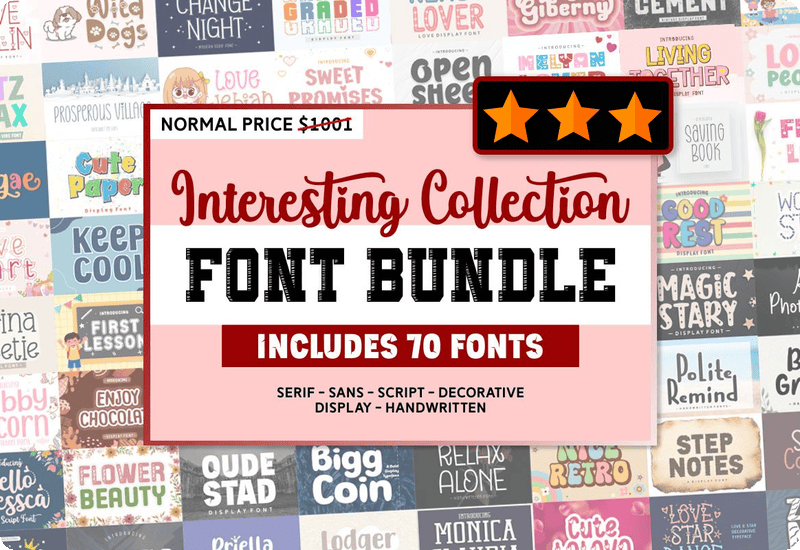
What is the Interesting Collection Font Bundle?
Premium Fonts included in the Interesting Collection Font Bundle:
- Wild Dogs Decorative Font
- Happily Christmas Script & Handwritten Font
- Luxury Christmas Display Font
- Love Star Dance Script & Handwritten Font
- Chubby Unicorn Script & Handwritten Font
- Rough Cement Fontes de Exibição Fonte
- Spooky Legend Display Font
- Aerial Photography Script & Handwritten Font
- Change Night Display Font
- Merina Sweetie Script & Handwritten Font
- Graded Display Font
- Prosperous Village Script & Handwritten Font
- Waiting Christmas Decorative Font
- Love Webian Serif Font
- Waltz Relax Polices d’Affichage Police
- Flashe Display Font
- First Lesson Display Font
- Nice Retro Display Font
- Lodger Friend Script & Handwritten Font
- Oude Stad Display Font
- Cute Paper Display Font
- School Christmas Decoratieve Fonts Font
- Melyan Lover Decorative Font
- Love Nelvin Fuentes Decorativas Fuente
- Cute Lalova Display Font
- Love Heart Decorative Font
- Ready Lover Display Font
- Enjoy Chocolate Display Font
- Cold Chocolate Fontes de Exibição Fonte
- First Love Decorative Font
- Love People Display Font
- World Star Decorative Font
- There Always Decorative Font
- Christmas Smiling Script & Handwritten Font
- Keep Cool Display Font
- Laughed Happily Display Font
- Love Cindia Decorative Font
- Monica Claudia Serif Font
- Good Rest Font Display Font Di Wankriss
- Dream Snow Decorative Font
- Simple Courage Script & Handwritten Font
- Relax Alone Czcionki Skryptowe Czcionka
- Love Serlin Fontes de Exibição Fonte
- Magic Stary Display Font
- Snow Falls Decorative Font
- Scary Love Script & Handwritten Font
- Rakigae Script & Handwritten Font
- Sweet Promises Display Font
- Spooky Spam Display Font
- Kaylin Display Font
- Bigg Coin Display Font
- Hello Anessca Script & Handwritten Font
- Pine Forests Display Font
- Zebra Nias Decorative Font
- Gather Together Script & Handwritten Font
- Winter Danced Script & Handwritten Font
- Briella Kailey Script & Handwritten Font
- Saving Book Script & Handwritten Font
- Shopila Display Font
- Former Beach Display Font
- Open Sheet Display Font
- Star Gazing Decorative Font
- Strong Woman Script & Handwritten Font
- Boost Growth Script Fonts Font
- Flower Beauty Decorative Font
- Polite Remind Script & Handwritten Font
- Step Notes Display Fonts Font
- Happy Giberny Display Font
- Living Together Display Font
- Christmas Event Display Font
Features of the Interesting Collection Font Bundle
Variety of Fonts
With 70 different fonts, you’ll find the perfect typeface for any occasion. Whether you need a whimsical script for a wedding invitation or a bold display font for a promotional poster, this bundle has you covered. The range includes:
- Script and Handwritten Fonts: Ideal for adding a personal touch to your designs.
- Display Fonts: Perfect for headlines and attention-grabbing elements.
- Decorative Fonts: Great for unique, themed projects.
High-Quality Design
Each font in the bundle is crafted with meticulous attention to detail, ensuring high-quality design and functionality. The fonts are not only visually appealing but also highly legible and versatile. This quality makes them suitable for both digital and print media, ensuring your projects look professional and polished.
Types of Fonts in the Interesting Collection Font Bundle
Script and Handwritten Fonts
The bundle includes a variety of script and handwritten fonts, such as Happily Christmas Script and Love Star Dance Script. These fonts are perfect for adding a personal, elegant touch to your designs. They work beautifully in invitations, greeting cards, branding materials, and more. The natural flow and intricate details of these fonts give your text a handwritten feel, making your designs more relatable and unique.